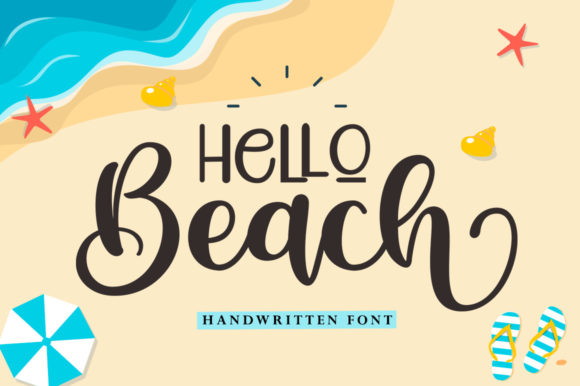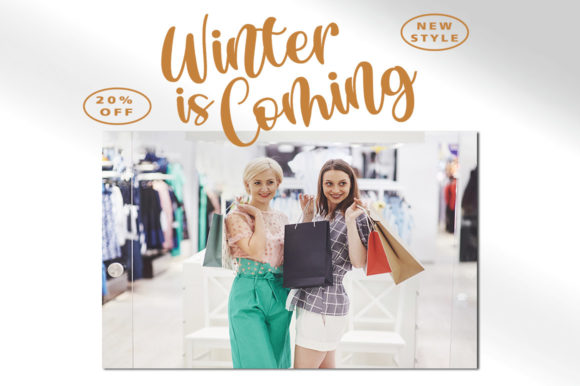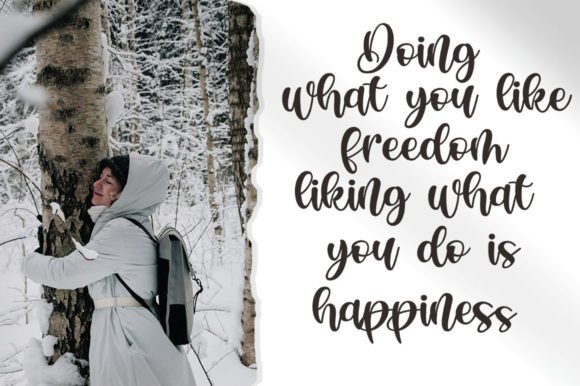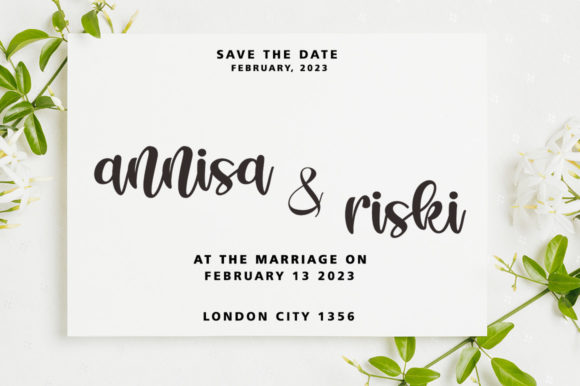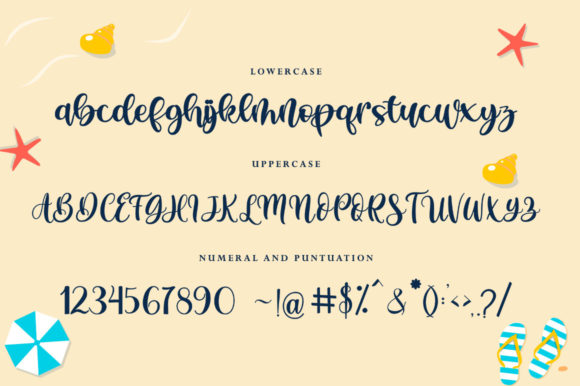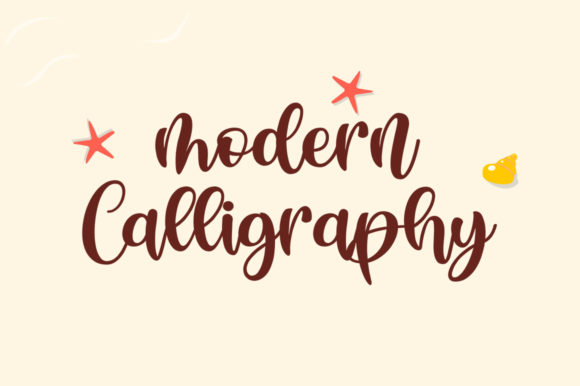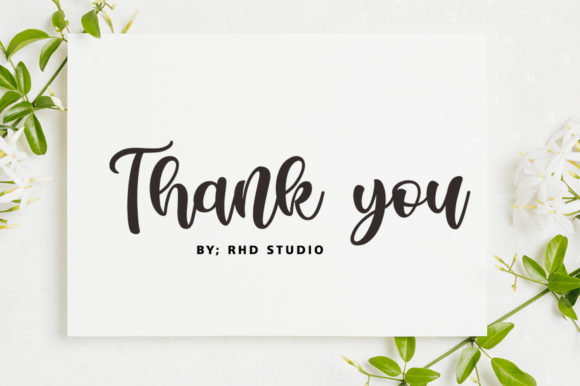
Hello Beach Font
“Hello Beach” is a fun and friendly handwritten font designed to infuse a sense of joy and charm into your creative projects. Whether you’re working on digital designs or tangible creations, this font serves as a versatile tool to turn any idea into a standout expression.
The friendly and fun nature of “Hello Beach” is reflected in its whimsical and handwritten style. The font’s unique charm adds a playful touch to your text, making it suitable for a wide range of applications. Whether used for social media graphics, invitations, or other design endeavors, “Hello Beach” brings a sense of lightheartedness to your projects.
As you get inspired by the font’s distinctive charm, you’ll find that it serves as a creative catalyst for lovely designs. Its handwritten aesthetic lends a personal touch to your text, making each piece feel warm and inviting.
Whether you’re creating designs inspired by the beach or incorporating “Hello Beach” into various themes, its fun and friendly demeanor ensures that your projects stand out with a unique and approachable vibe.
In summary, “Hello Beach” is more than just a font; it’s a fun and friendly handwritten typeface that elevates your designs with a unique charm. Whether used for digital or print projects, let “Hello Beach” be the font that brings a sense of joy and standout appeal to your creative endeavors, making each design a delightful expression of your creativity.